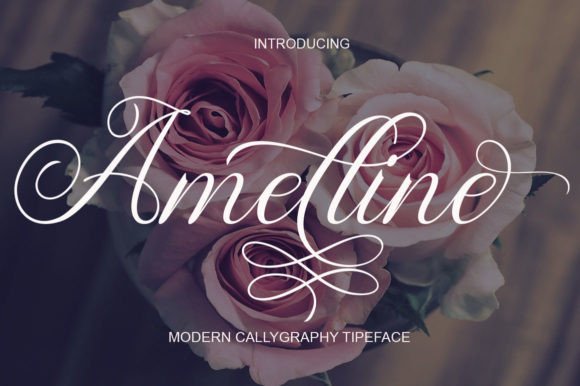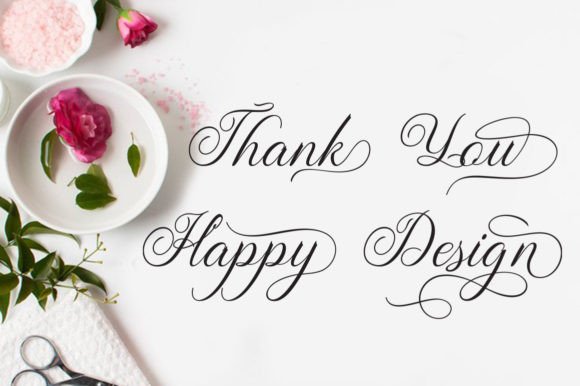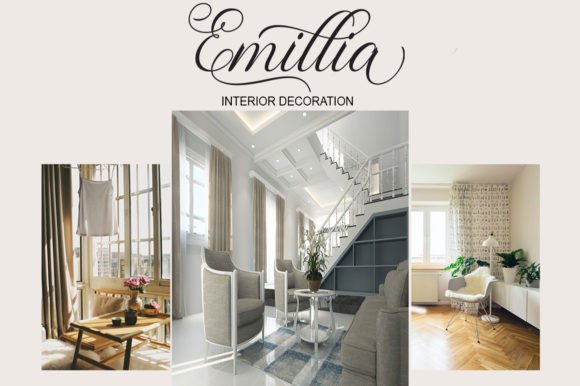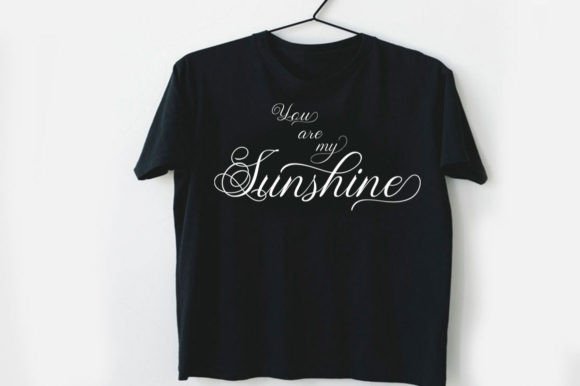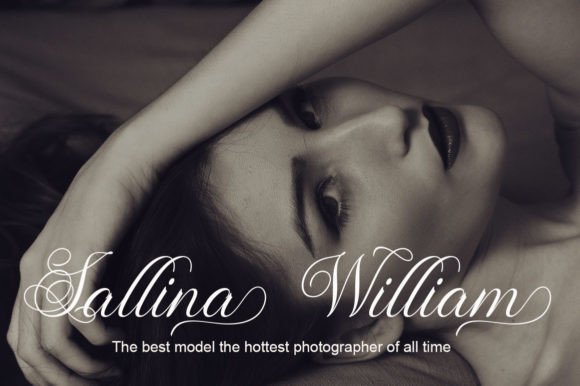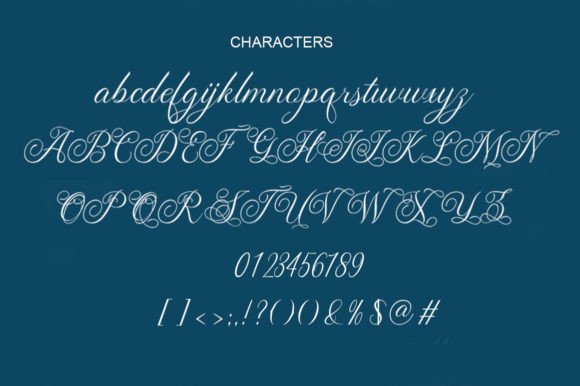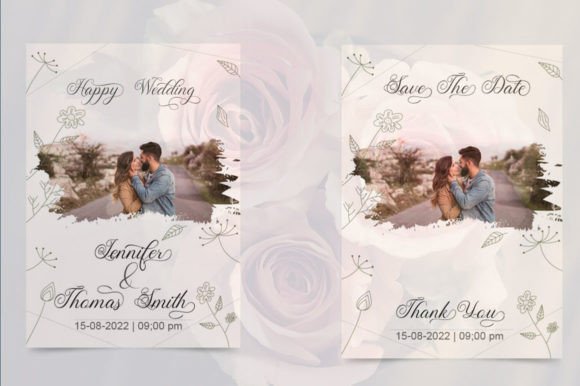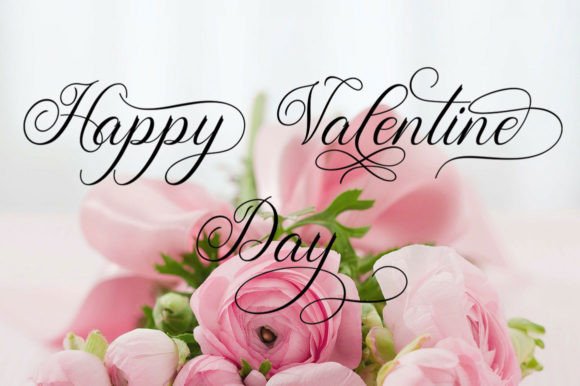
Amelline Font
“Amelline Script Modern Calligraphy is a beautifully designed font that combines the elegance of handwriting with a modern and unique calligraphy form, resulting in a writing style that feels exceptionally natural. Its versatility makes it suitable for a myriad of purposes, including headings, logos, wedding invitations, t-shirts, letterheads, labels, news, posters, badges, and more. This font is PUA encoded, providing easy access to all its intricate glyphs and swashes, enhancing the user experience for designers.
The charm of Amelline Script lies in its graceful and modern calligraphy, where each stroke is thoughtfully crafted to exude a sense of sophistication. The fluidity of its writing style adds a touch of elegance to any project it graces.
Its PUA encoding is a valuable feature, allowing designers to effortlessly access the full range of glyphs and swashes. This user-friendly aspect enhances the font’s adaptability, providing the creative flexibility needed to customize designs according to specific preferences.
Whether you’re creating wedding invitations, branding materials, or any other creative project, Amelline Script stands out as a versatile and refined choice. Its natural flow and modern aesthetic ensure that your designs carry an air of contemporary elegance.
Imagine Amelline Script enhancing your designs, adding a unique and sophisticated touch to each project. Its calligraphic form becomes a defining element, making your creations memorable and visually appealing.
As you explore the nuances of Amelline Script, you’ll discover its potential to elevate various projects into works of art. Let it be the cornerstone of your creativity, guiding you to craft designs that resonate with a modern and elegant aesthetic. With Amelline Script, every stroke becomes a testament to the artistry of modern calligraphy, making it an invaluable asset for designers who appreciate the beauty of handwritten typography.”